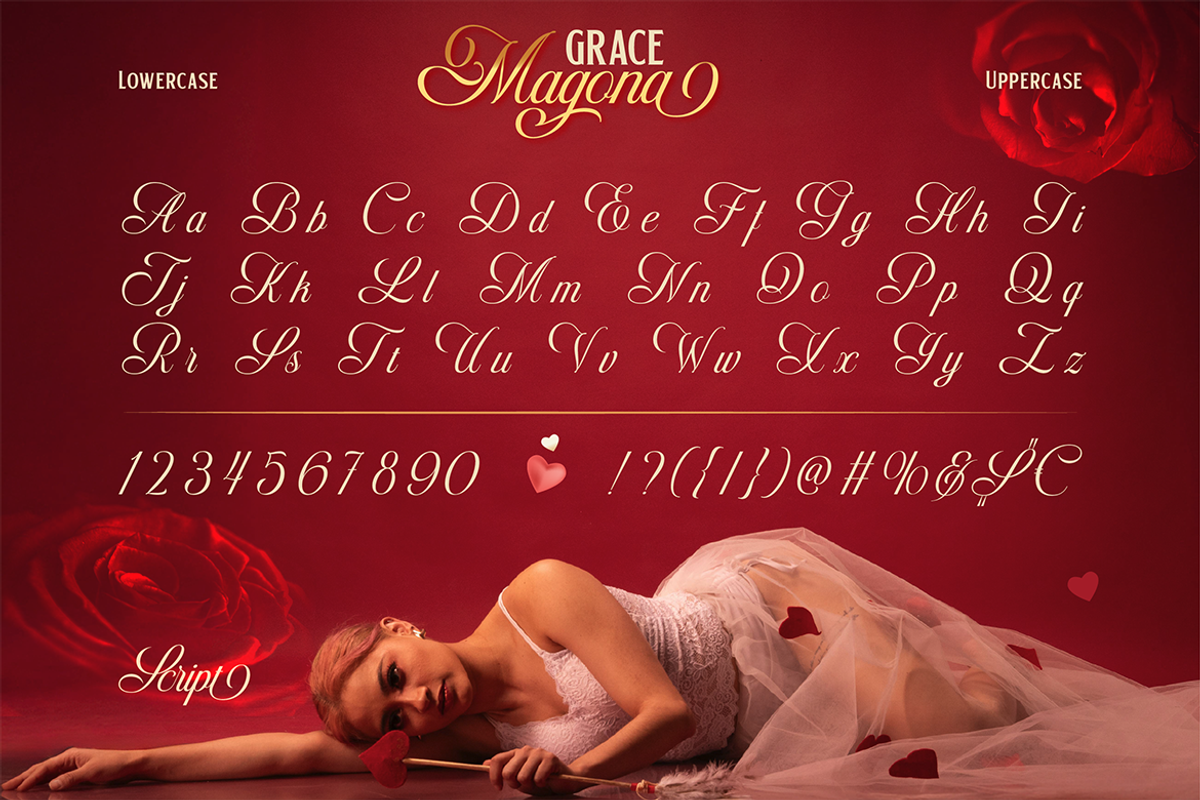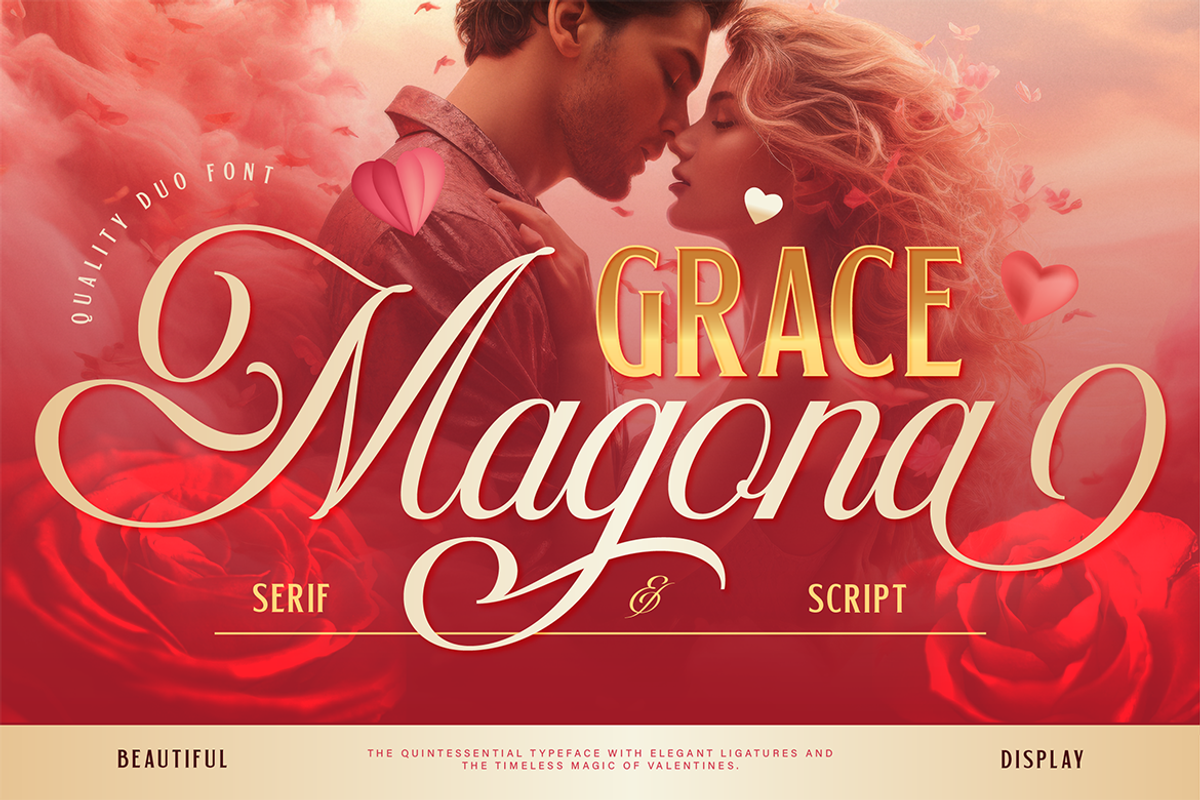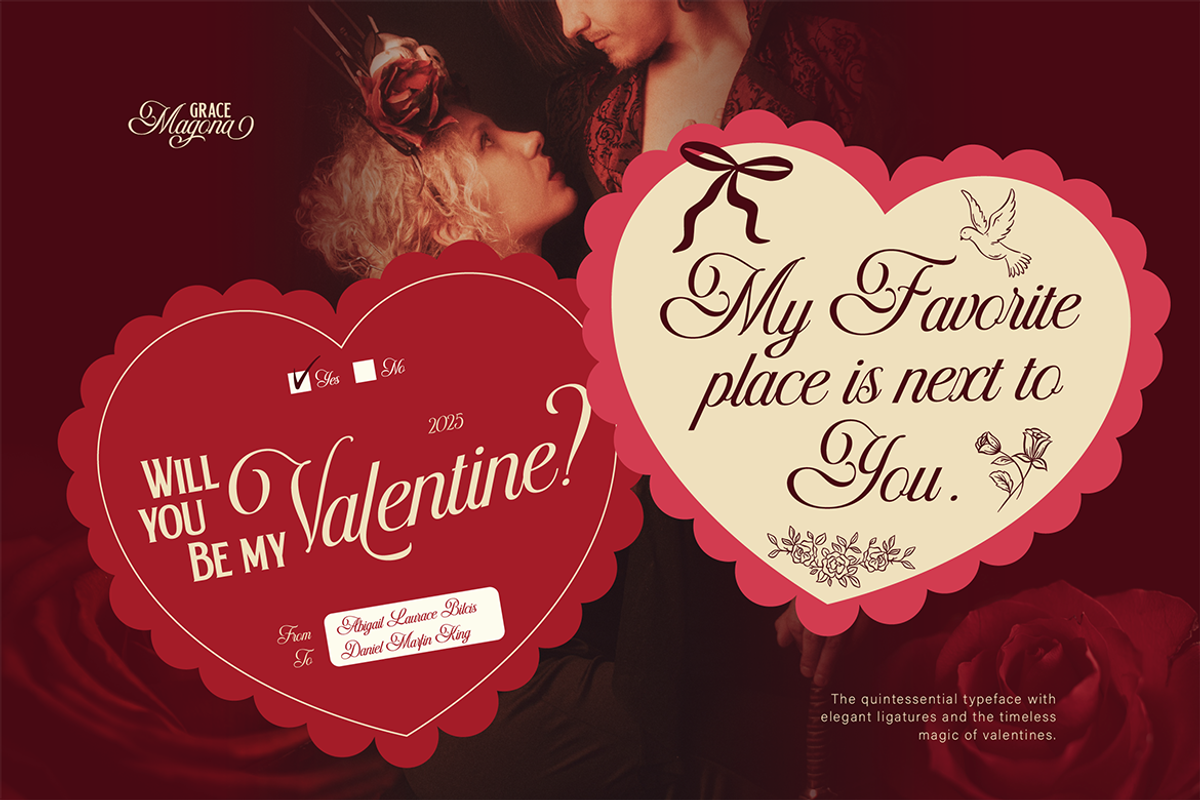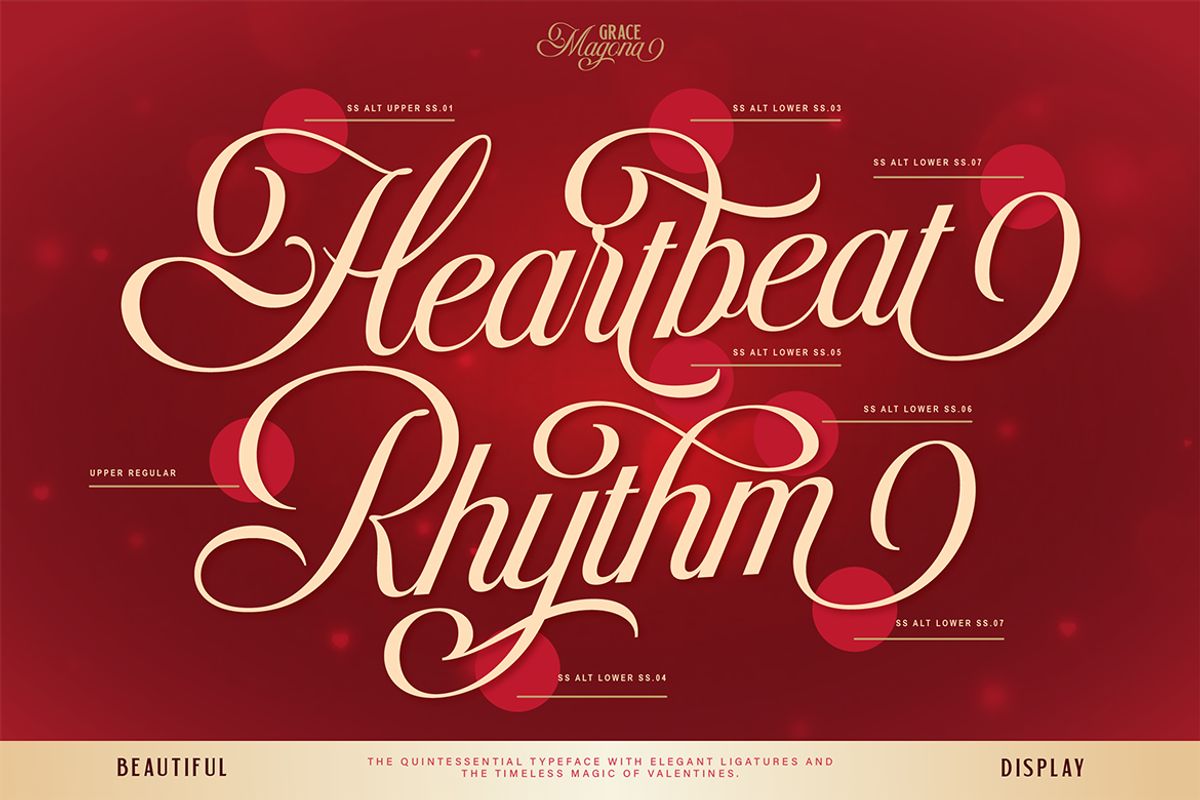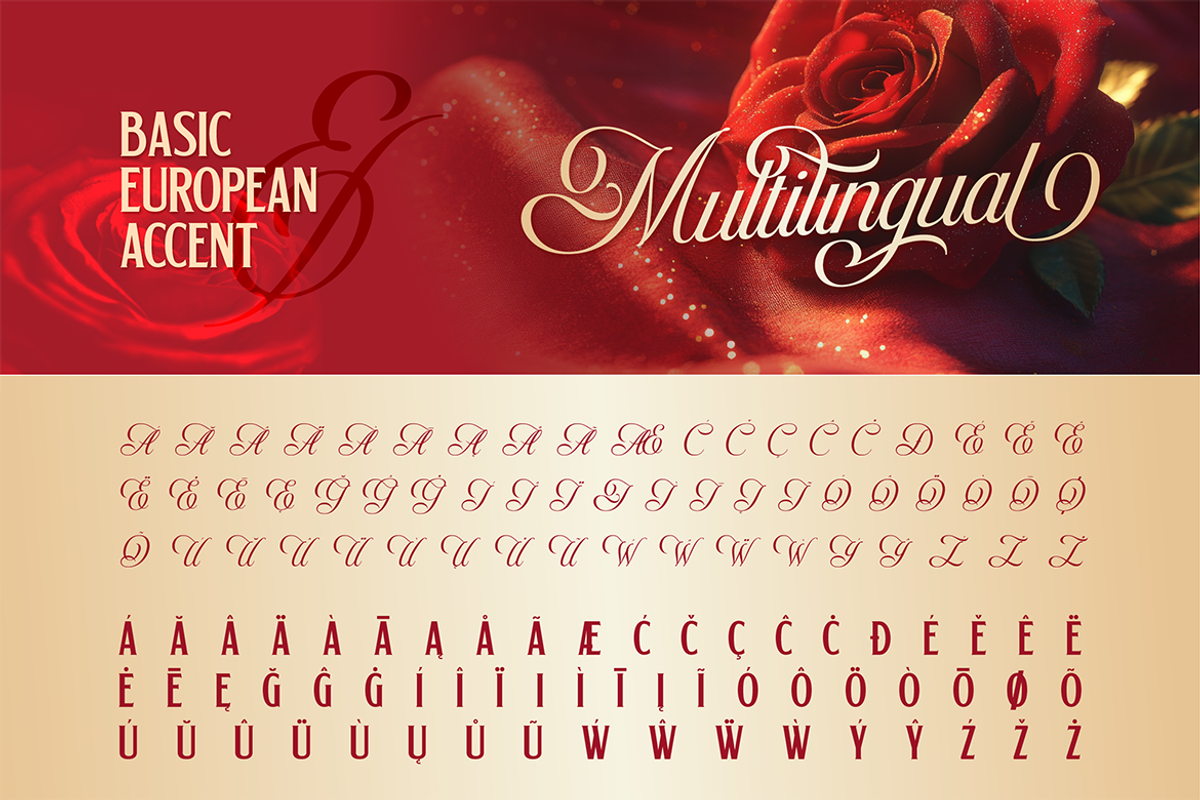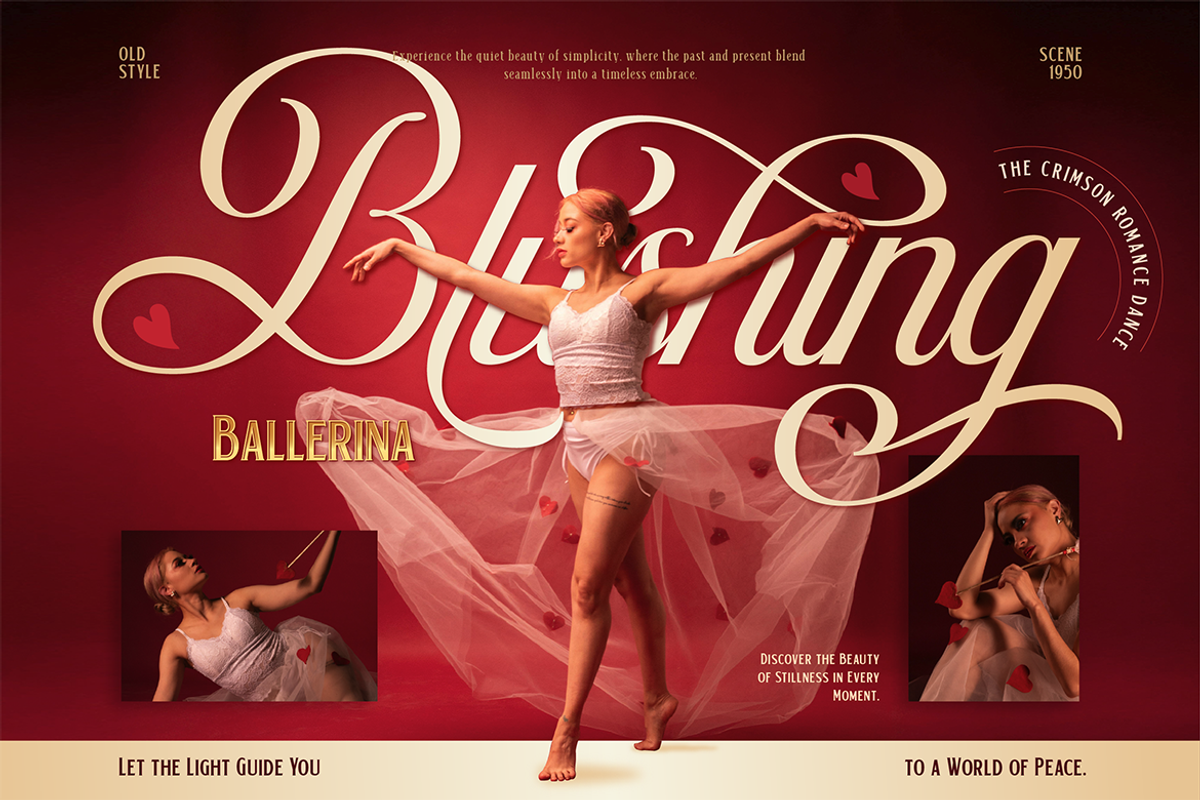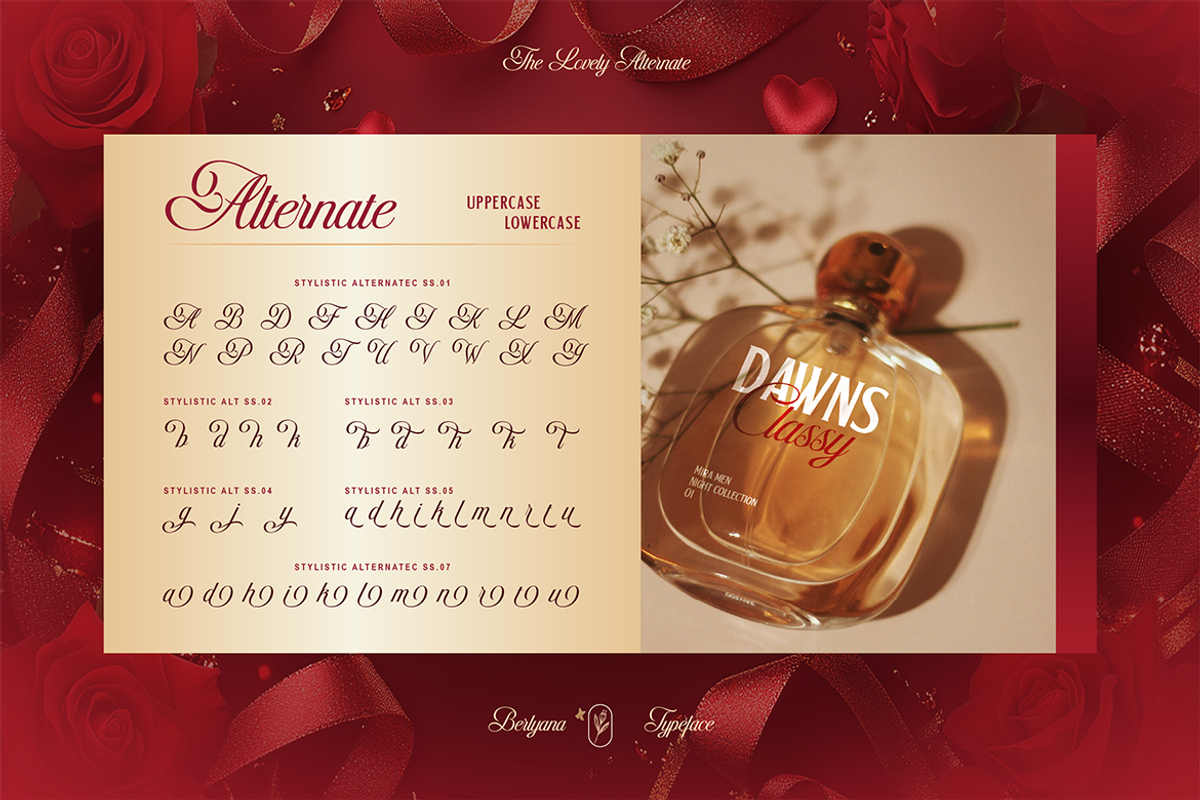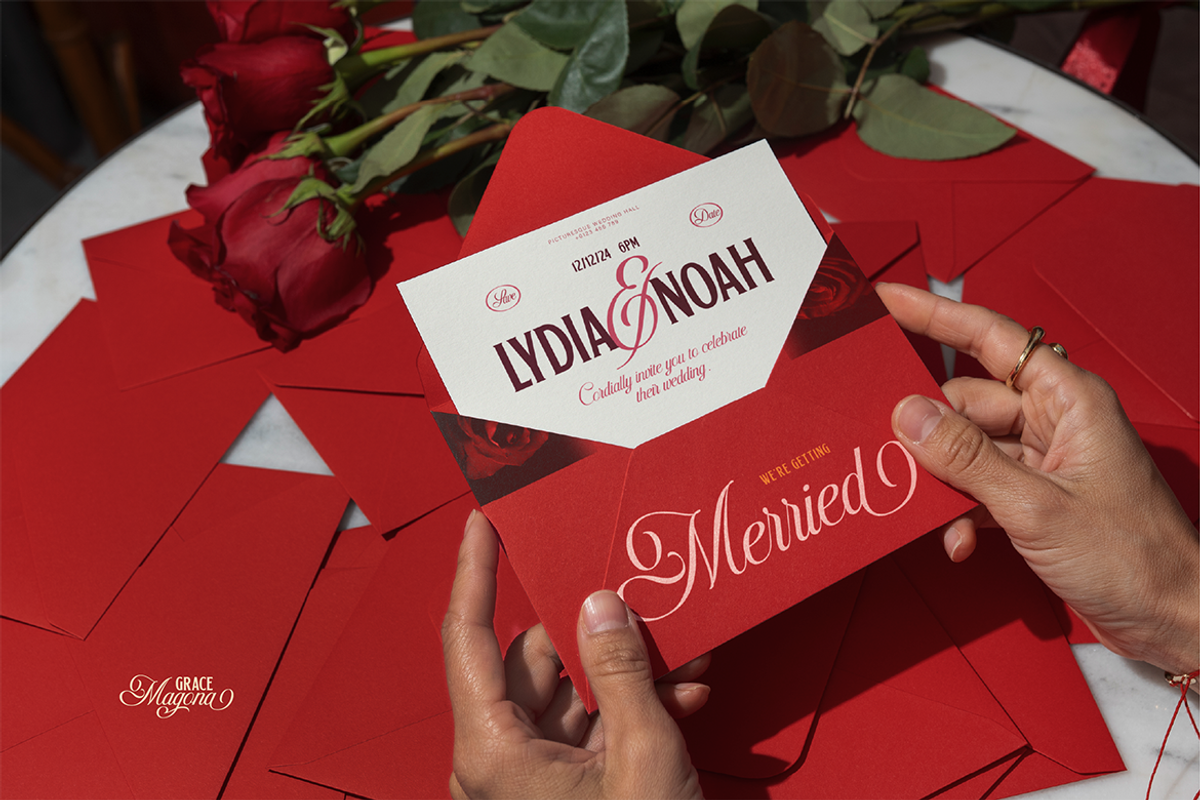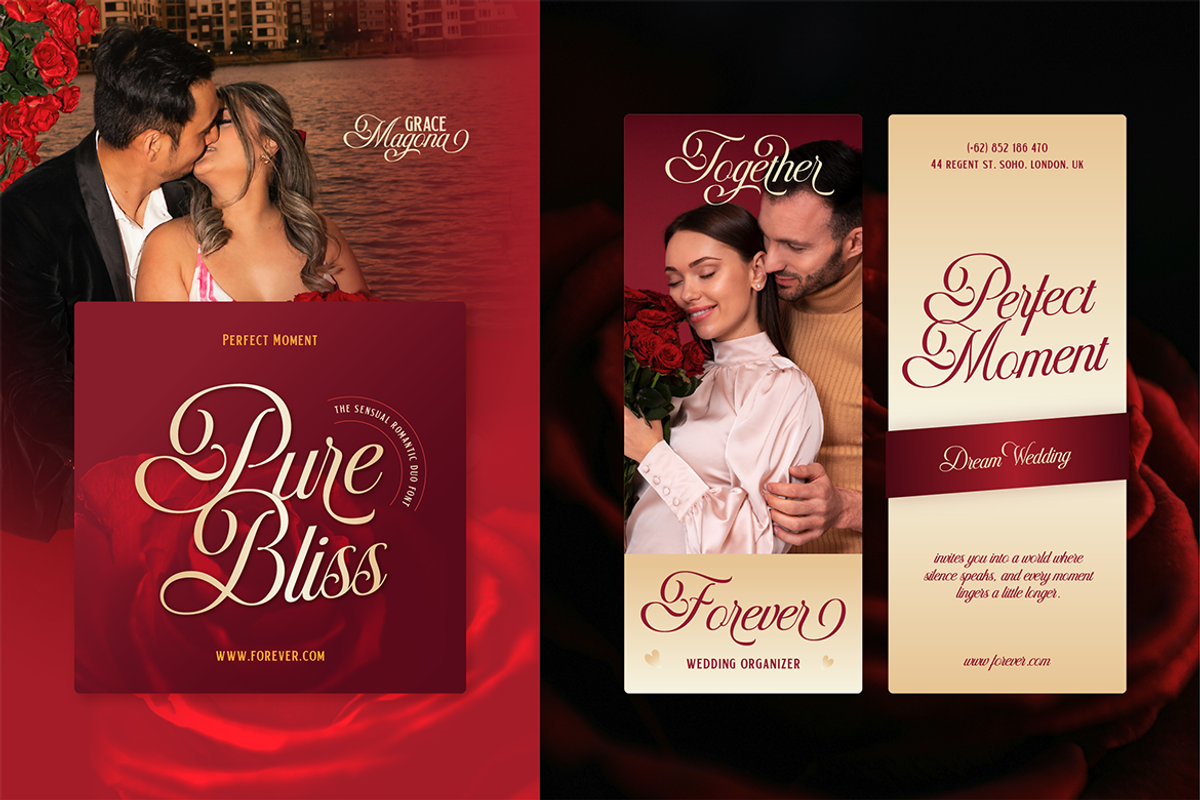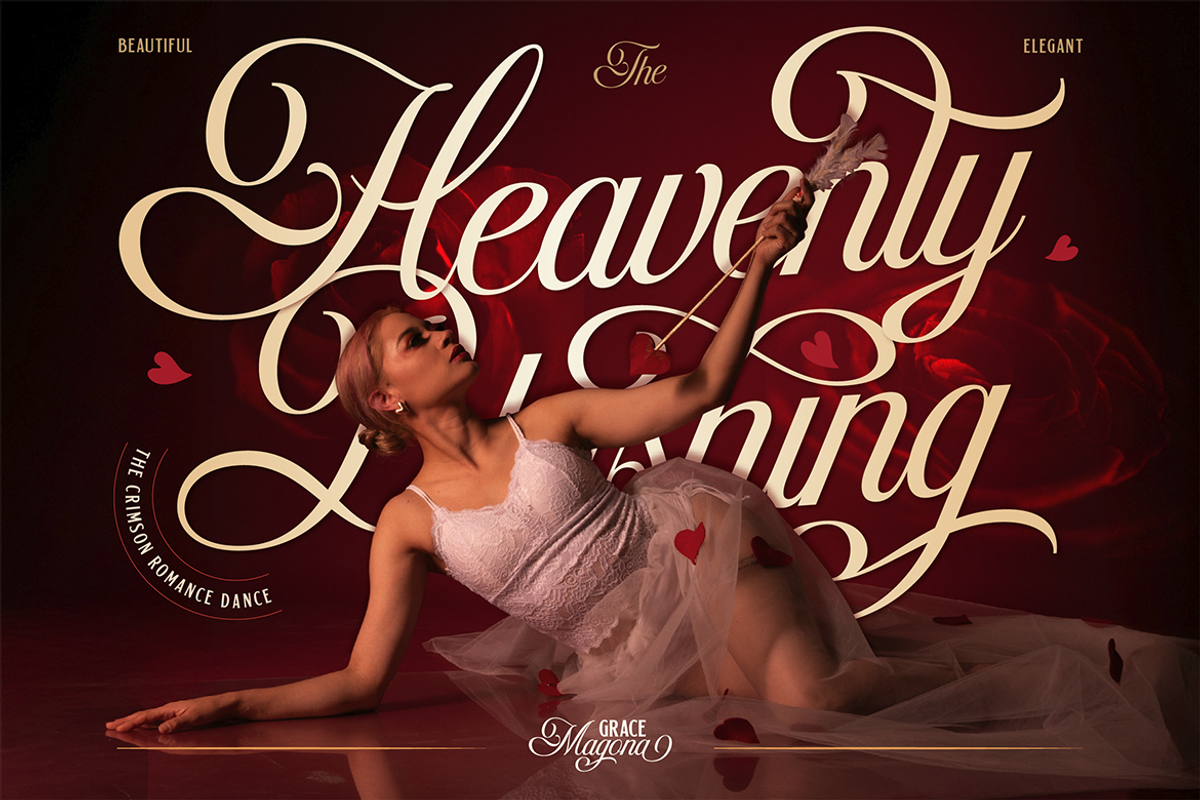
Grace Magona
Grace Magona is a romantic duo font that blends sensual curves with elegant sophistication. Featuring a bold, luxurious serif paired with a soft, seductive script, this typeface brings a warm, intimate energy to every design. The serif style delivers confidence and classic charm, while the script flows with silky strokes and passionate movement—creating the perfect harmony for love-themed visuals, beauty branding, wedding designs, perfume packaging, and editorial layouts. Let your words feel tender, alluring, and beautifully timeless with Grace Magona—a duo font designed to elevate romance in the most elegant way.